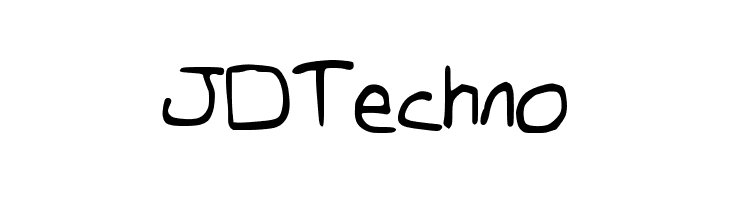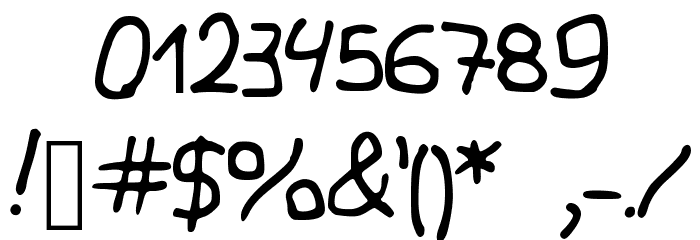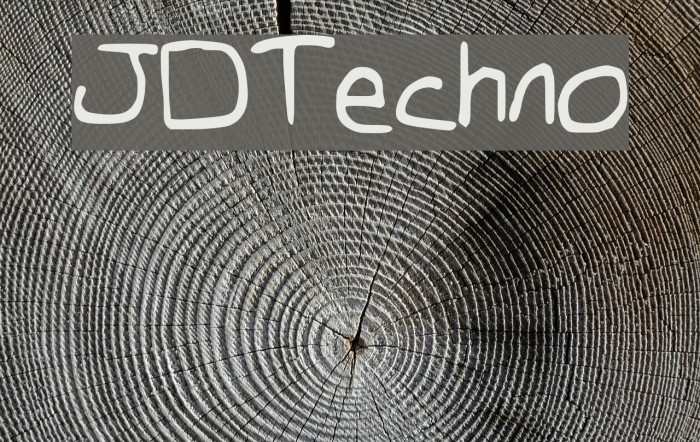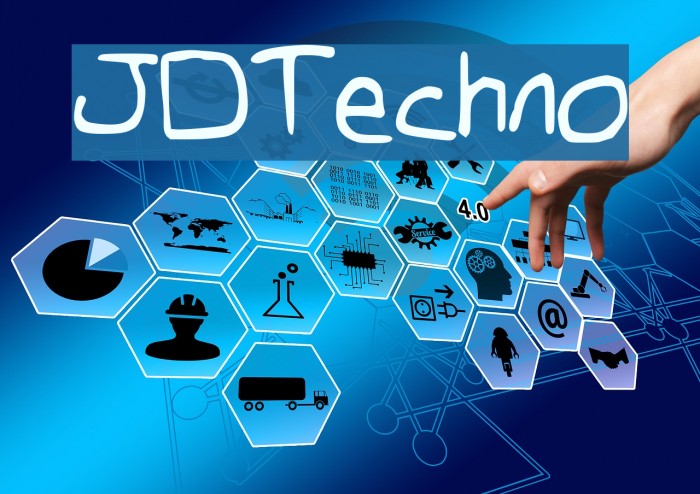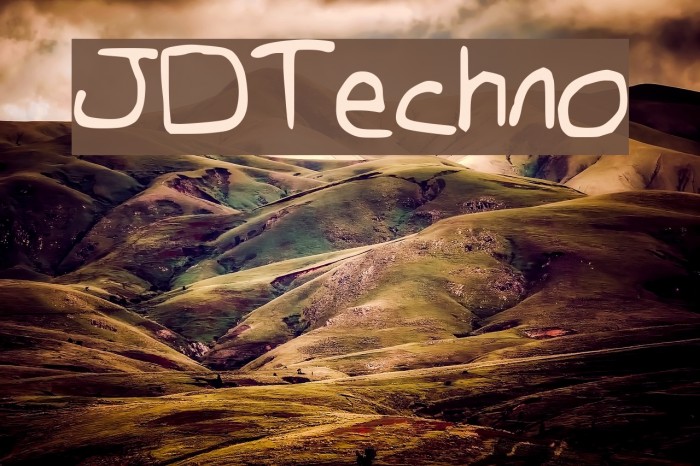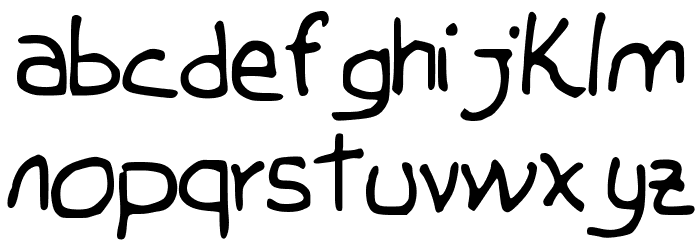
JDTechno Font
JDTechno Description
This font features a playful and casual handwritten style, characterized by its rounded and slightly irregular letterforms. The strokes are consistent in width, giving it a uniform appearance despite its informal nature. The characters have a friendly and approachable feel, making it suitable for projects that aim to convey warmth and creativity. The numerals and special characters maintain the same playful aesthetic, ensuring a cohesive look across all text elements. This font is versatile enough to be used in both digital and print media, where a touch of personality is desired.
A playful, handwritten font with rounded, consistent strokes from Uncategorized fonts.
- Proposed Projects: Ideal for children's books, greeting cards, casual branding, and creative social media graphics.
- Overall Style: Casual, Playful
- Use Case: Headlines, Informal text, Creative projects